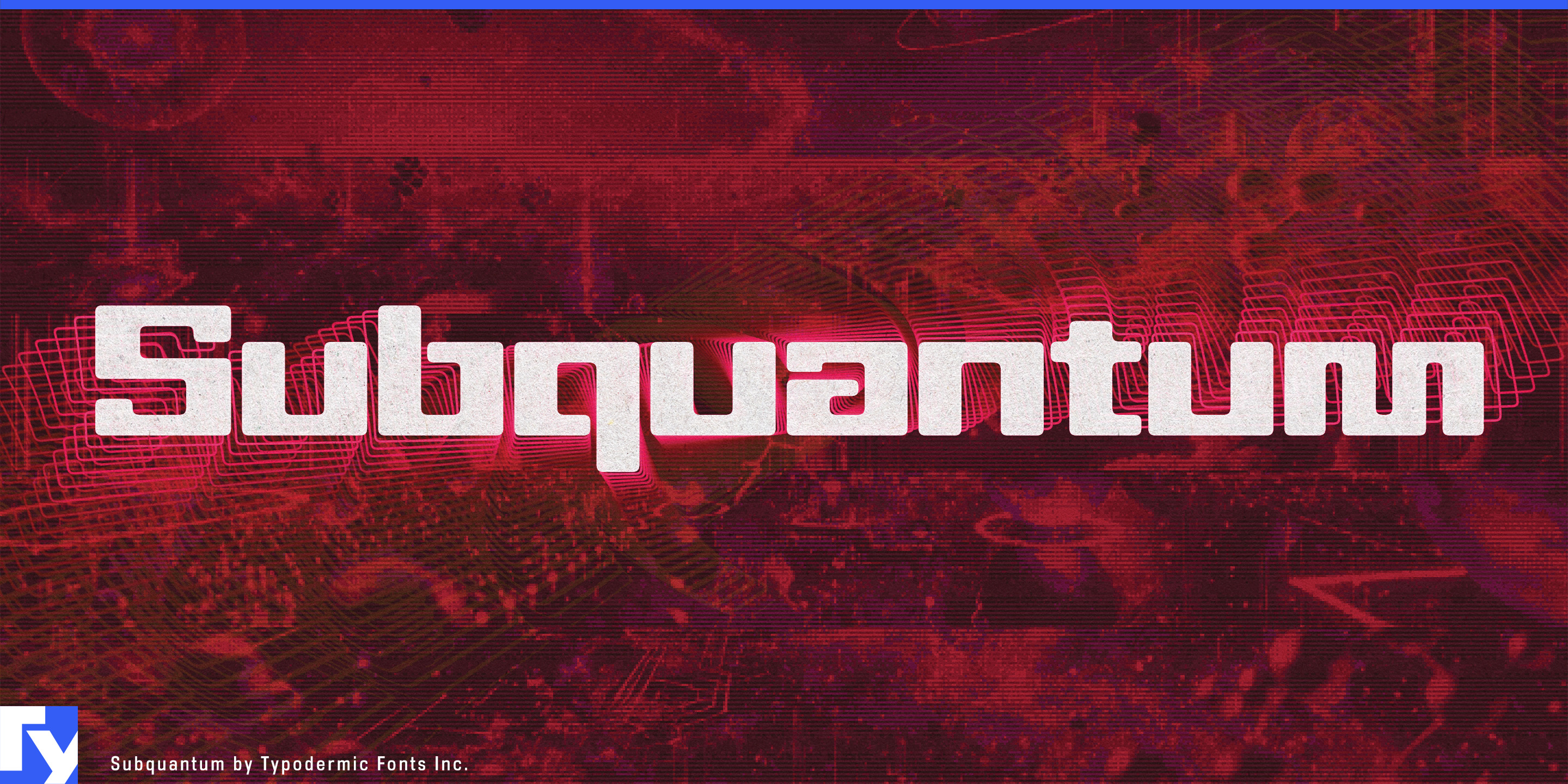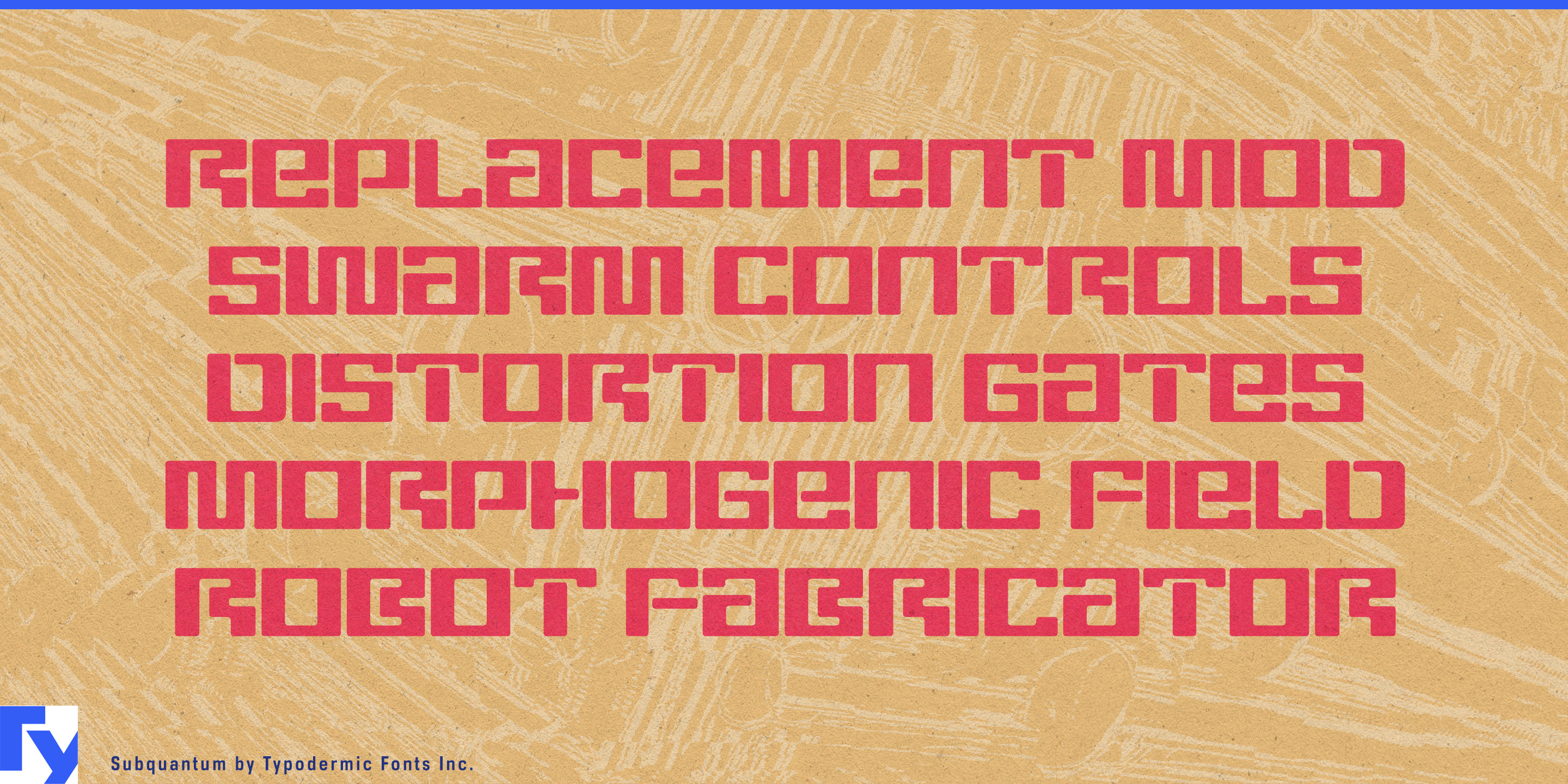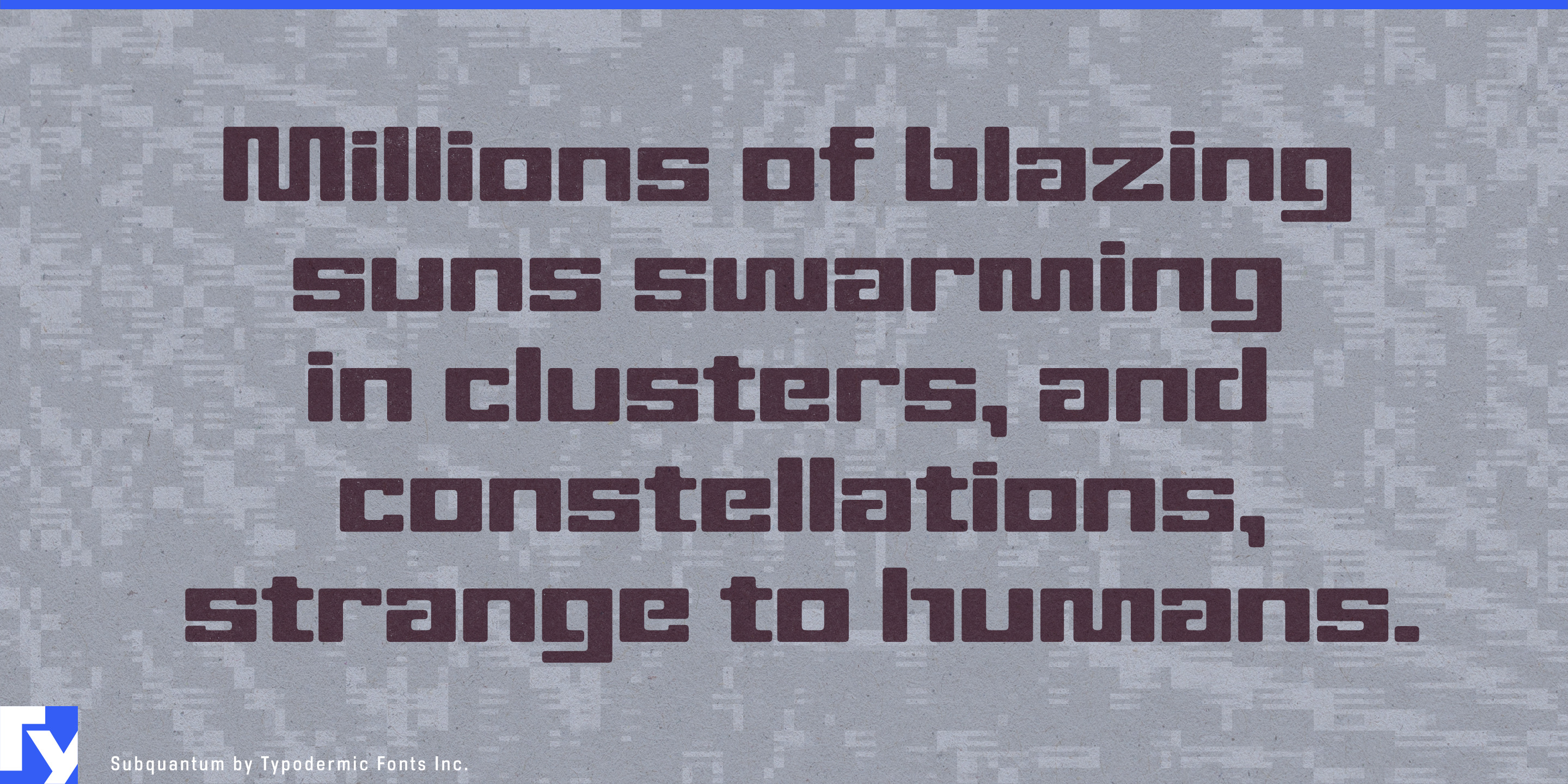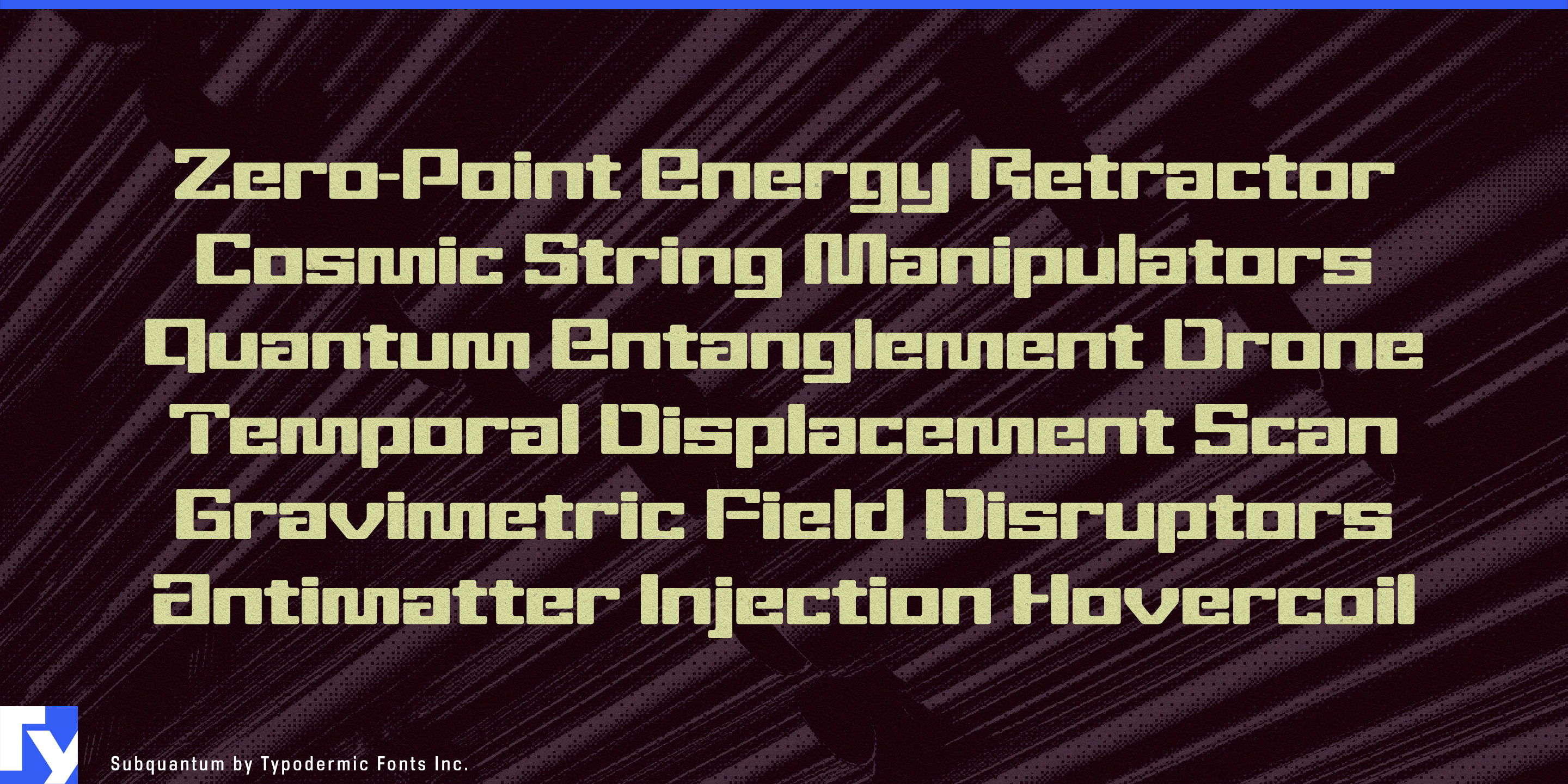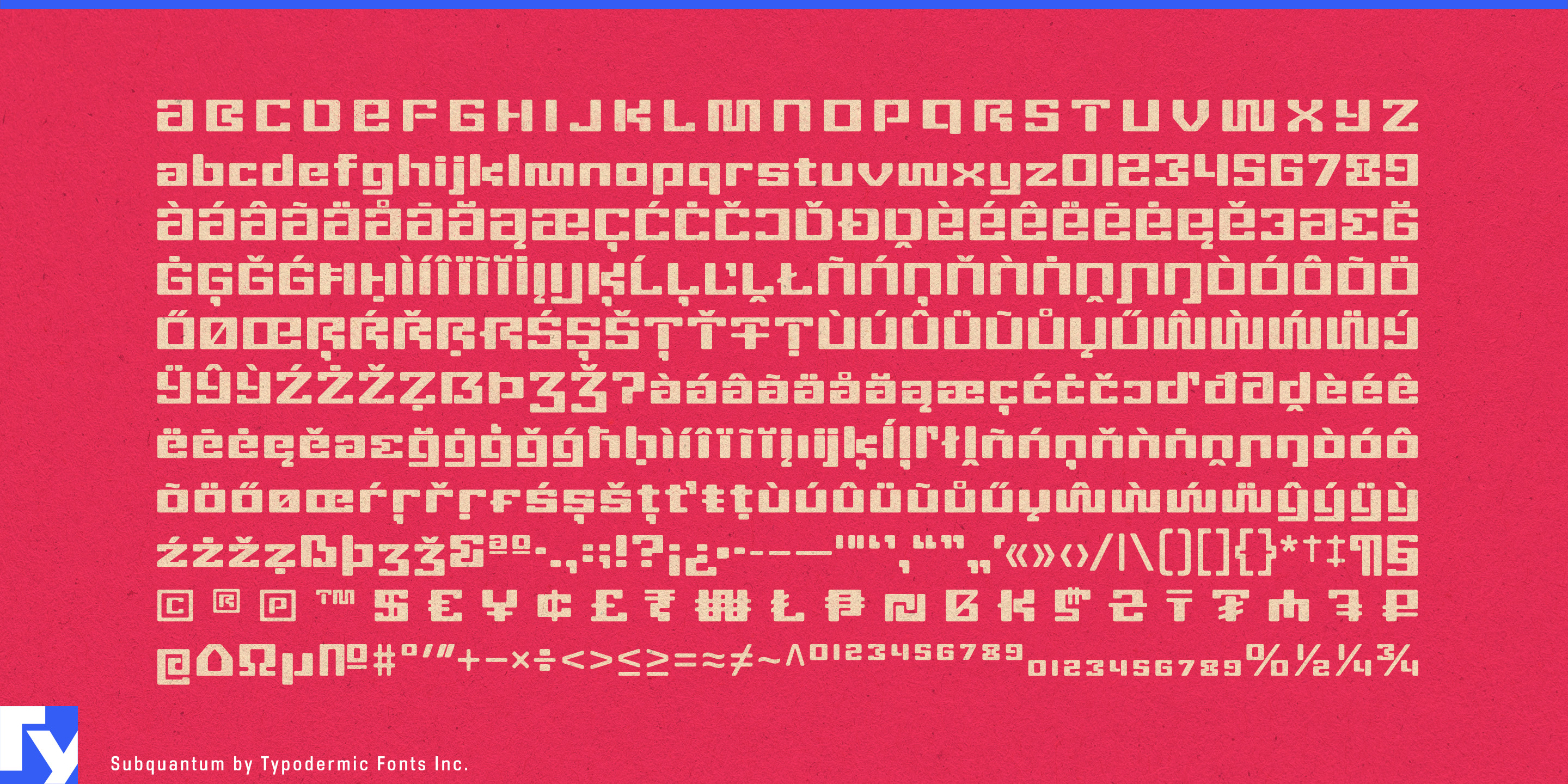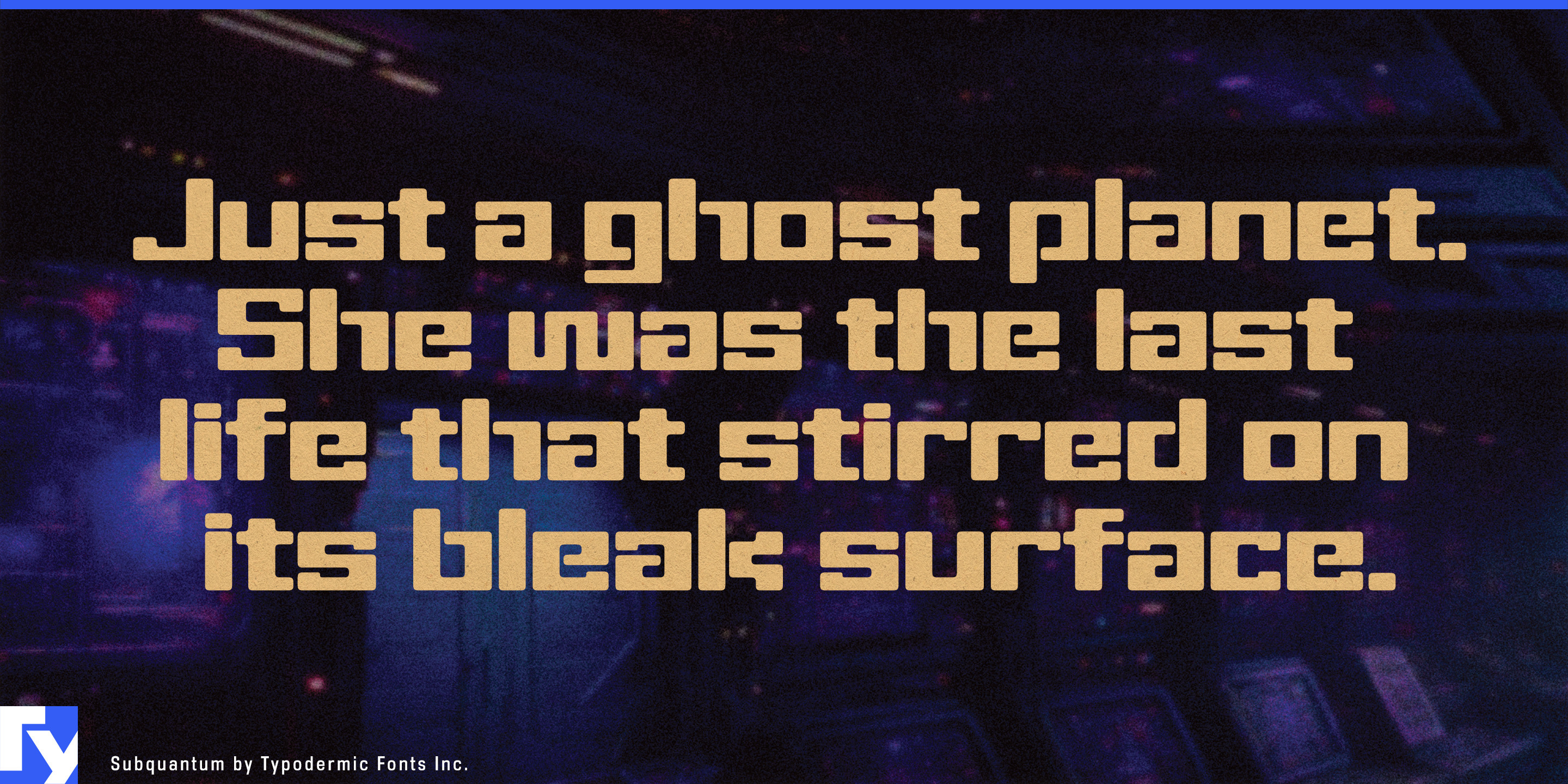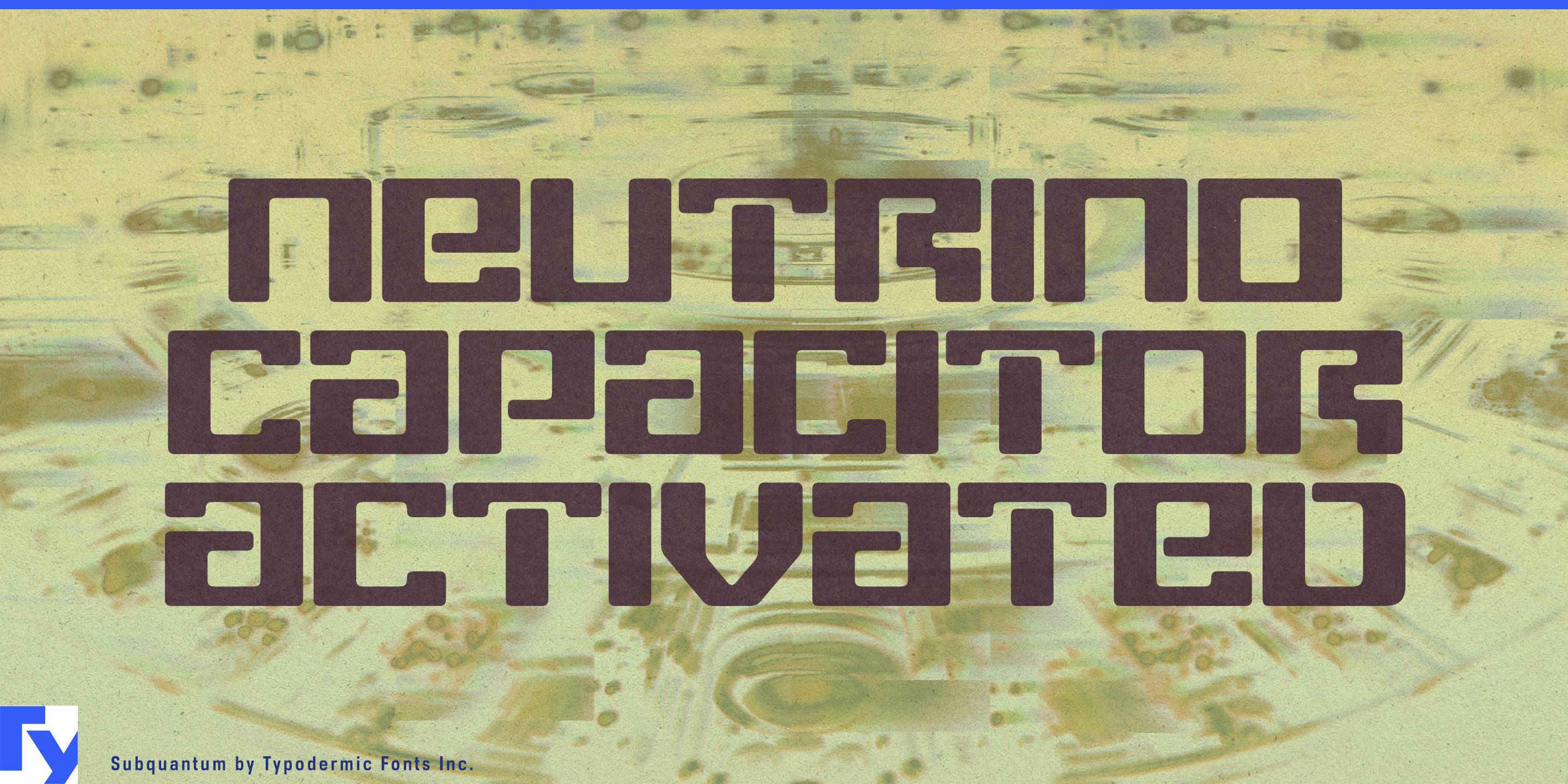
Subquantum
Some technologies have an awkward identity problem once they leave the laboratory. A neutral corporate sans can make a fusion machine, quantum sensor, or advanced reactor look like enterprise software; push too far toward futuristic display lettering and the same project starts to resemble fictional hardware.
Subquantum occupies the space between those extremes. Its condensed block construction, softened corners, and mixed-case alphabet give scientific and engineering names enough visual strangeness to acknowledge that the technology is unusual while remaining grounded enough for real machines, facilities, research programs, and presentations. It works particularly well when the typography has one major job: naming the experiment, reactor, instrument, platform, or system.
Fusion energy is a natural setting. Pilot plants, plasma-confinement machines, superconducting magnet systems, heating platforms, fuel-cycle equipment, and plasma diagnostics all need names that can carry substantial technical weight without becoming visually bureaucratic. Subquantum can handle fusion-device names, research-building identities, magnet-system families, technology demonstrations, conference screens, and exhibition graphics where the machine itself is the subject.
Advanced nuclear systems present a related challenge. Microreactors, factory-built reactor platforms, transportable power systems, test programs, and heat-conversion modules are moving toward practical deployment while still feeling unfamiliar to much of the public. Subquantum can give reactor names, demonstration-site graphics, technology-platform identities, and engineering presentations a distinctly advanced character without leaning on military stencil conventions or retro atomic imagery.
Quantum sensing and precision timing offer a smaller-scale application for the same idea. Optical clocks, quantum magnetometers, gravity sensors, navigation systems, and precision-measurement platforms need sensor-family names, research-program titles, instrument graphics, and technology-showcase material that can suggest advanced science without drifting into fantasy.
Particle accelerators, neutron sources, beamlines, and detector systems create another strong territory. Scientific facilities routinely name upgrades, instruments, experimental programs, and target stations with long technical phrases that benefit from condensed display typography. Subquantum can give accelerator projects, beamline names, neutron instruments, detector programs, visitor-center graphics, and conference presentations substantial presence.
Off-world power infrastructure extends the same language into lunar reactors, surface-power systems, habitat energy platforms, and other technologies intended for sustained operations beyond Earth. Subquantum can handle system names, mission-technology demonstrations, and lunar-infrastructure presentations while keeping the emphasis on practical engineering rather than space opera.
Subquantum is most useful when an emerging technology has become real enough to need a name, but unusual enough that ordinary corporate typography undersells it.